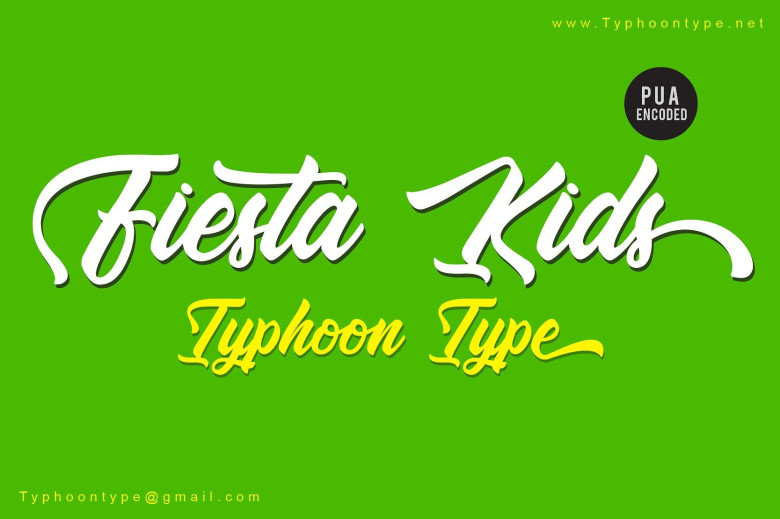
Fiesta Kids Script Font
Hello! Introducing Fiesta Kids Font! Fiesta Kids A new and beautiful Signature font, created to meet your needs in creating a beautiful and elegant design, this font is special for you. Fiesta Kids This font perfect for logos, name tag, advertising, product packaging, clothing, social media & greeting cards.